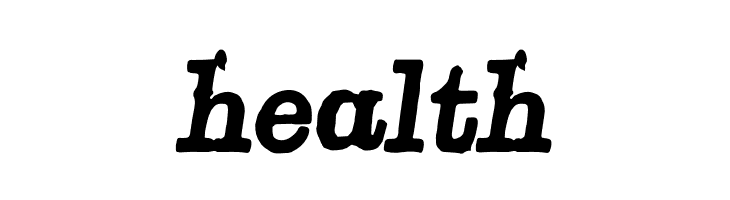
A bold, modern font with high contrast and geometric elements.
A bold blackletter font with sharp, angular lines and high contrast.
A modern, sans-serif font with rounded edges and consistent stroke width.
A bold, modern font with clean lines and a friendly appearance.
A bold, geometric font with a strong, modern presence.
An elegant script font with flowing, cursive lines and high contrast strokes.
A modern, geometric font with bold, angular characters and a sleek appearance.
A modern, geometric typeface with consistent stroke width and a clean, professional look.
A bold, expressive font with a dynamic, handwritten style.
A retro-style font with tall, narrow characters and sharp angles.
A bold, geometric font with a strong, blocky appearance.
A bold, monospaced font with uniform strokes and clear readability.
A bold, monospaced font with a typewriter-like aesthetic.
A modern, clean font with a geometric and slightly curved design.
A bold, geometric font with angular shapes and a futuristic aesthetic.
A thorny, jagged decorative font with an intense and edgy style.
A bold, hand-drawn font with dynamic strokes and an artistic flair.
A dynamic script font with elegant, flowing strokes and a modern calligraphic style.
A bold, playful script font with interconnected letters and a casual, handwritten feel.
A bold, flowing script font with smooth, connected strokes and rounded edges.
A lively and expressive handwritten font with fluid strokes and playful elegance.
A dynamic and elegant script font with flowing, cursive strokes.
A bold, dynamic font with a playful and slightly irregular style.
A bold, modern font with angular characters and a dynamic style.
A bold, dynamic handwritten font with a modern and energetic style.
Elegant handwritten script font.
A playful, handwritten font with fluid, irregular strokes and a casual vibe.
A casual, handwritten font with a playful and informal style.
A bold, high-contrast font with thick strokes and elegant curves.